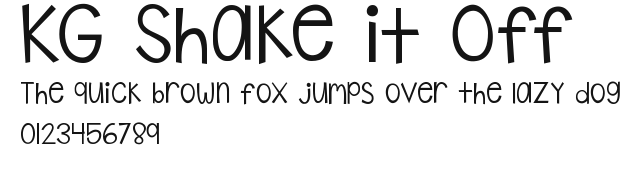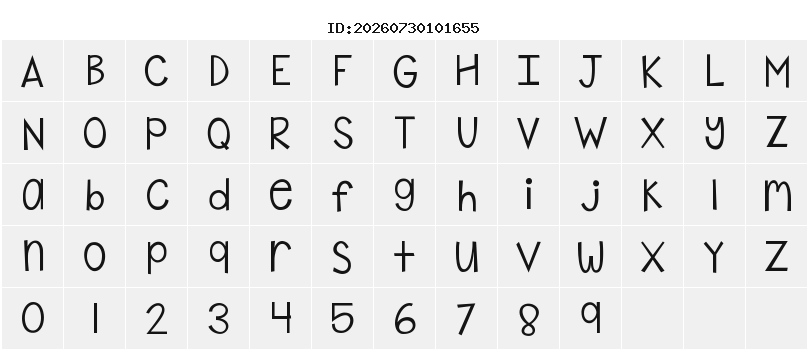
• Font Name: KG Shake it Off
• Font ID: KimberlyGeswein: KG Shake it Off: 2014
• Full Font Name: KG Shake it Off
• Version: Version 1.000 2014 initial release
• PostScript Name: KGShakeitOff
• Character Count: 347
• Designer: Kimberly Geswein
• Manufacturer: Kimberly Geswein
About KG Shake it Off.ttf
KG Shake it Off.ttf is a modern, elegant sans-serif font designed for ultimate readability and visual harmony. Perfect for branding, headlines, web design, and print materials.